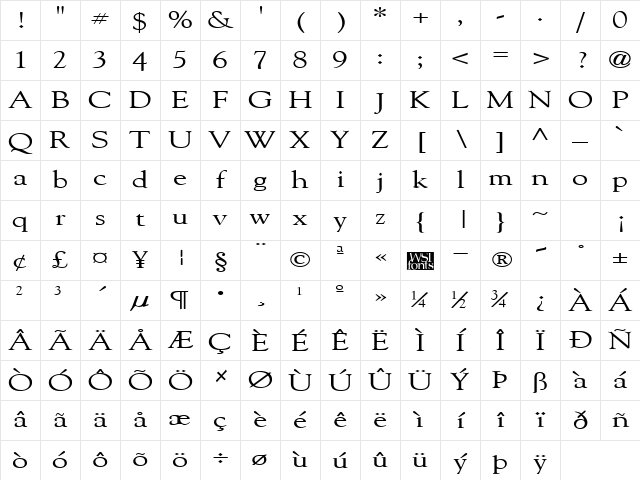
GildeBroad Regular
Complete GildeBroad Regular glyph index. Displaying only characters natively supported by GildeBroad Regular font.
Design Context for GildeBroad
GildeBroad is a composed and adaptable typeface that performs quietly and consistently across a wide range of design contexts.